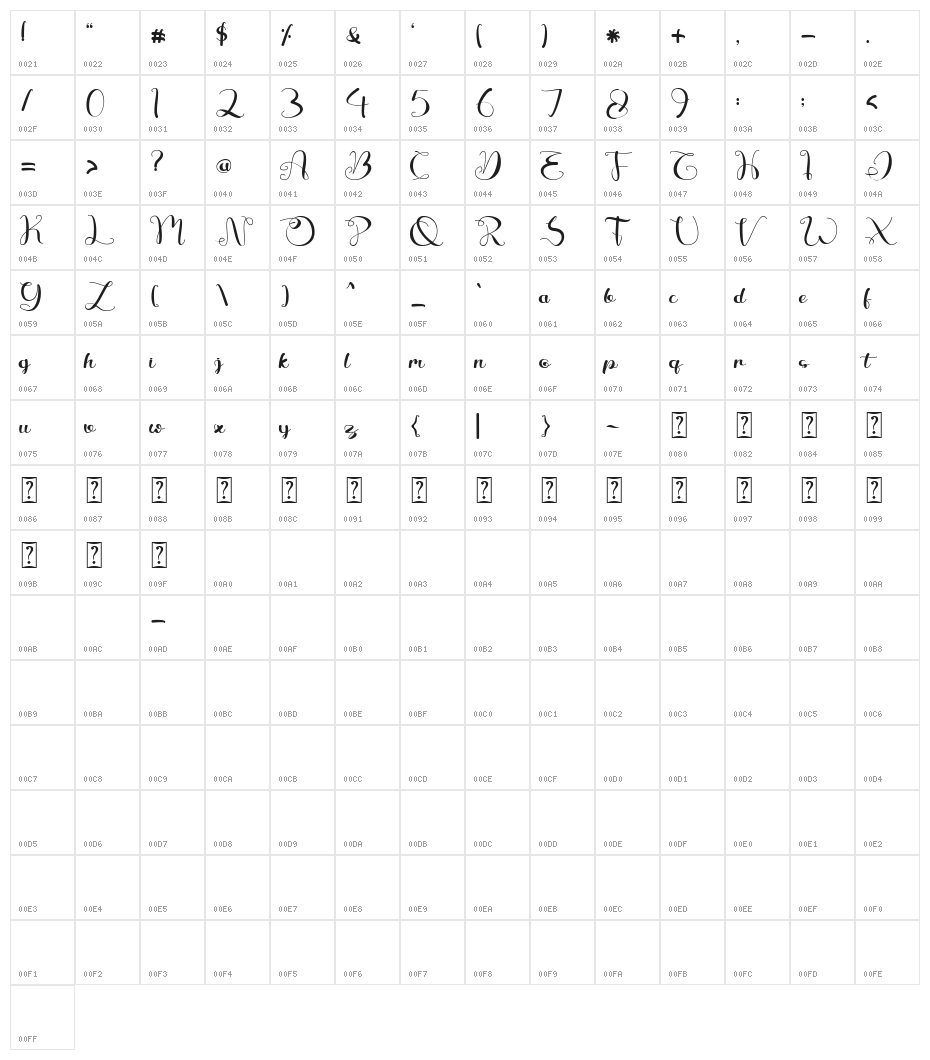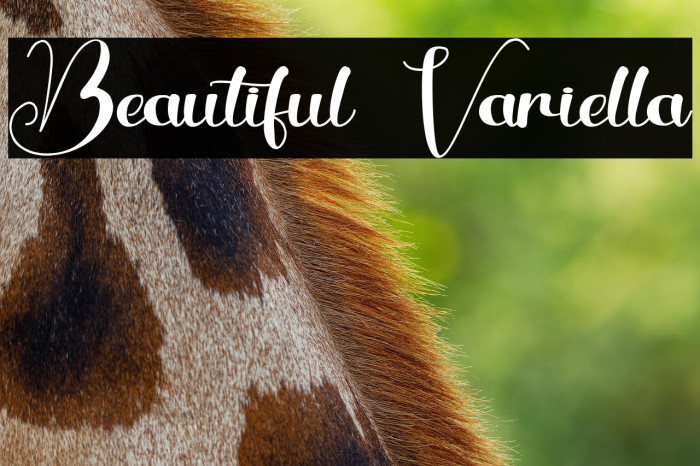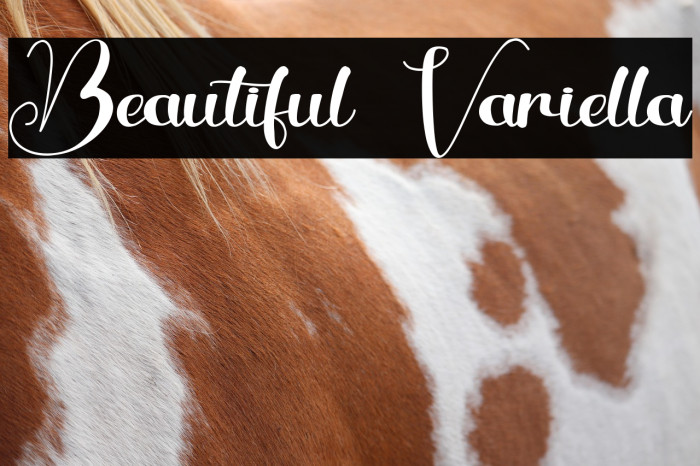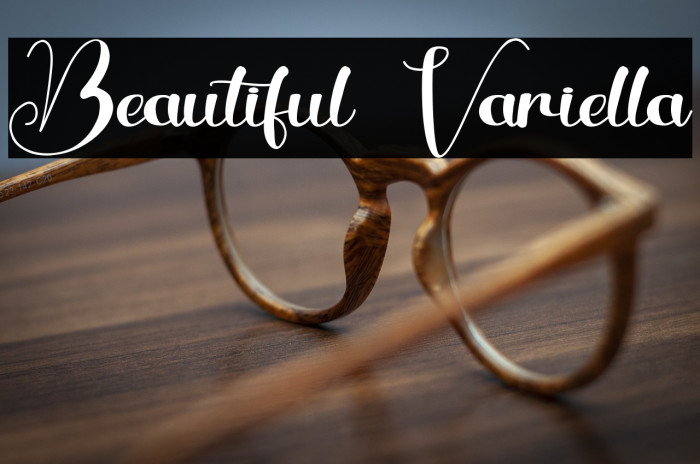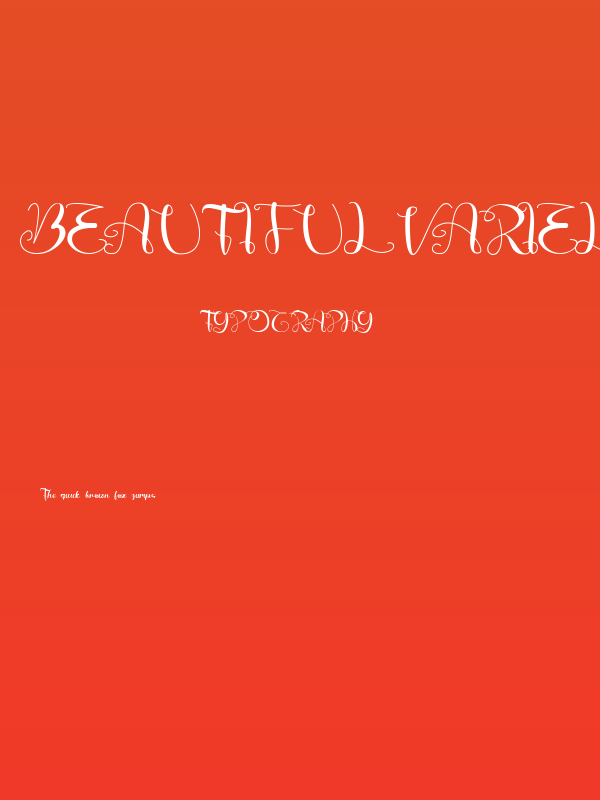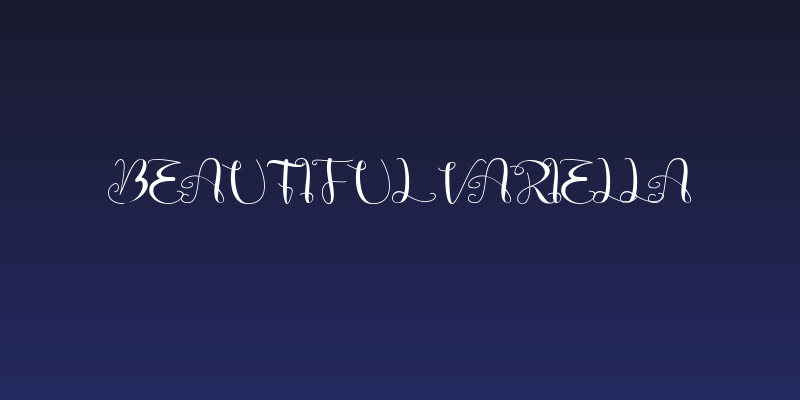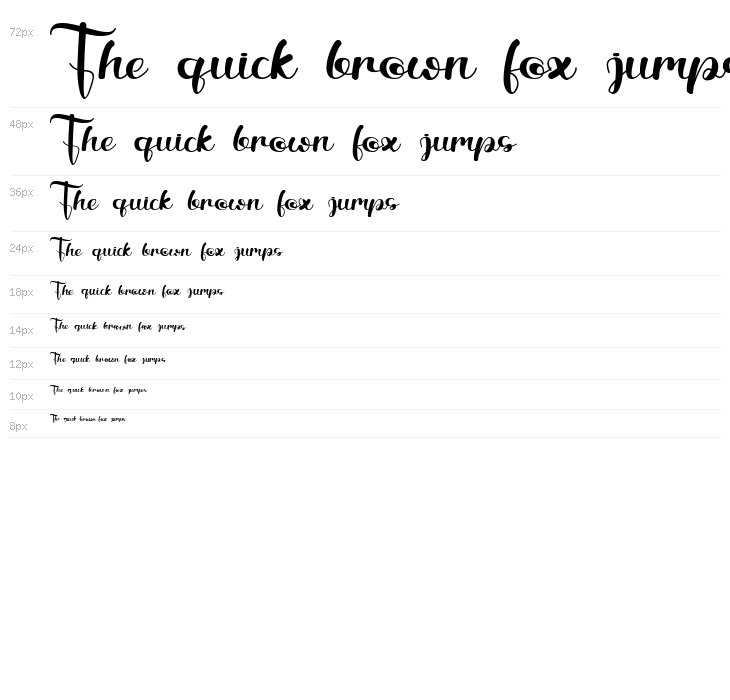
Beautiful Variella Font
Beautiful Variella Description
This font features an elegant and decorative script style with intricate swirls and flourishes that give it a sophisticated and artistic appearance. The uppercase letters are particularly ornate, with loops and curves that add a touch of whimsy and elegance. The lowercase letters maintain a more fluid and connected script style, providing a nice contrast to the more elaborate uppercase. The numerals and special characters are consistent with the overall decorative theme, making this font suitable for creative and expressive designs. Its unique style is perfect for projects that require a touch of elegance and personality.
| Use Case | Logos, Invitations, Decorative Text |
| Proposed Projects | Ideal for wedding invitations, greeting cards, branding, and decorative posters. |